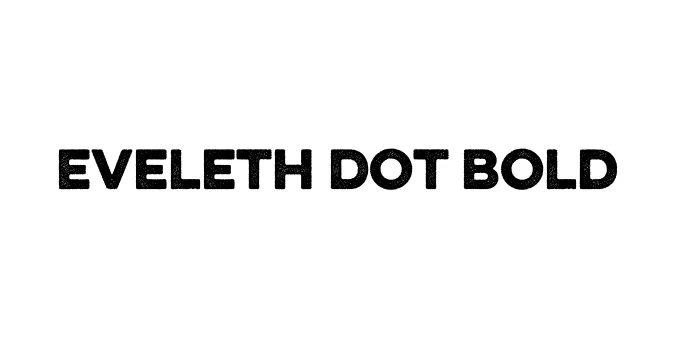
Eveleth Dot Bold
Designed by Ryan Martinson (Yellow Design Studio)
| Font Name | Eveleth Dot |
| Category | Display / Letterpress |
| Designer | Ryan Martinson (Yellow Design Studio) |
Eveleth Dot Bold is an integral part of the comprehensive Eveleth family, a high-resolution letterpress font system designed to capture the grit and character of vintage printing. This specific variant features a unique dotted texture that mimics the look of halftone patterns and industrial signage. The font captures the essence of authentic vintage aesthetics, providing a weathered and distressed feel that adds significant depth and historical character to modern design projects.
As a key member of the Eveleth toolkit, the Dot Bold weight is meticulously crafted to maintain its clarity even with its heavy distress levels. It is often utilized for its high-impact typographic presence, making it a favorite for designers seeking a handcrafted, organic appearance. Whether used as a standalone display face or layered with other styles in the family, it offers unparalleled versatility for retro-themed branding, editorial headlines, and bold advertising campaigns.
Eveleth Dot Bold Best Uses
Excellent for creating heritage-inspired logos and brand identities with a rugged feel.
Highly effective for large-scale headlines on event posters and industrial-style signage.
Ideal for artisanal or craft product packaging that requires an organic, printed look.
Perfect for t-shirt designs and merchandise that benefit from a distressed, vintage vibe.